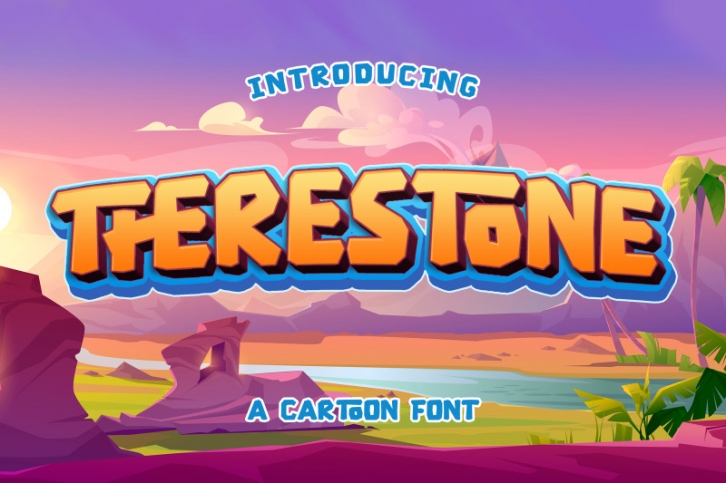
Therestone is a Cartoon Display Font that will make your designs look modern, unique and fun.
It’s perfect for labels, quotes, posters, DIY projects, branding, packaging, greeting cards, websites, photography overlays, signs, window art, scrapbooking, tags and so much more!
+ Ligatures